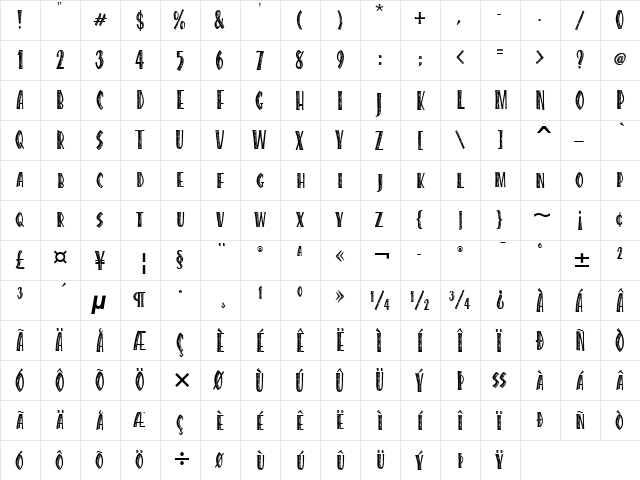
Caribbean ITC Bold
Design Context for Caribbean ITC Typeface
Caribbean ITC is a composed and adaptable typeface that performs quietly and consistently across a wide range of design contexts. The heavy weight commands attention and anchors typographic hierarchies.